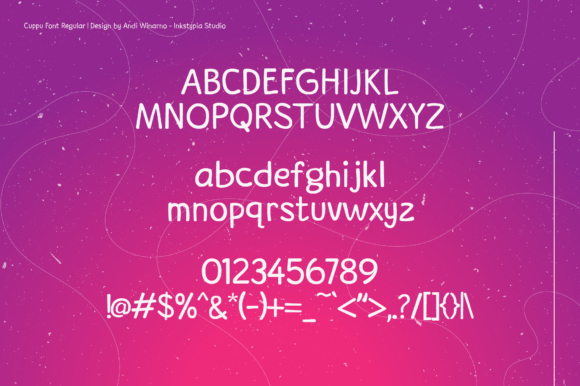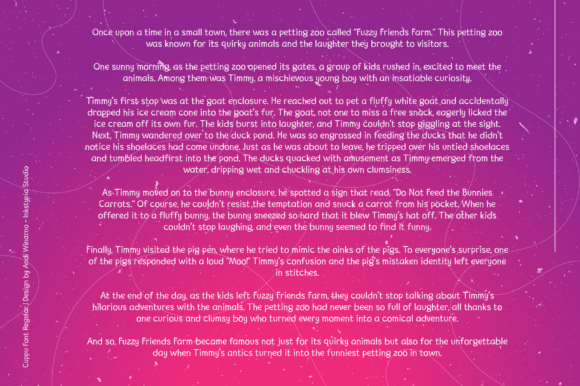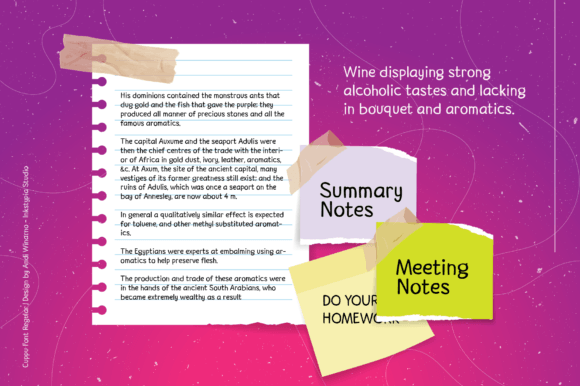
Cupu Font: The Ultimate Choice for a Casual and Relaxed Design
In the world of typography, fonts play a crucial role in conveying the tone and personality of a design. When it comes to creating a friendly and effortless vibe, Cupu Font stands out as an excellent choice. This casual and relaxed typeface captures the essence of handwritten text, making it perfect for personal notes, casual invitations, and relaxed branding materials.
The Characteristics of Cupu Font
Cupu Font boasts an informal and laid-back style that exudes a sense of ease and informality. The characters feature fluid and organic shapes, resembling the free-flowing nature of handwriting. This unique characteristic makes Cupu Font an ideal choice for designers and crafters looking to add a personal touch to their work.
The Benefits of Using Cupu Font
So, why choose Cupu Font for your design projects? Here are some benefits that make it a popular choice among designers:
- Conveys a friendly and effortless vibe: Cupu Font is designed to make your designs feel approachable and relaxed, making it perfect for projects that require a personal touch.
- Perfect for handwritten-style designs: With its fluid and organic shapes, Cupu Font is ideal for creating handwritten-style designs that look effortless and casual.
- Suitable for various design projects: From personal notes to casual invitations and relaxed branding materials, Cupu Font is a versatile typeface that can be used for a wide range of design projects.
Who Can Benefit from Cupu Font?
Cupu Font is a great choice for various designers and crafters, including:
- Graphic designers: Whether you’re working on a branding project or creating social media graphics, Cupu Font can add a touch of informality and comfort to your designs.
- Stationery designers: If you’re creating personal stationery, such as notecards or invitations, Cupu Font is an excellent choice for adding a personal touch.
- Crafters: Crafters who create handmade cards, gift tags, or other paper crafts can use Cupu Font to add a friendly and effortless vibe to their work.
Tips for Using Cupu Font Effectively
To get the most out of Cupu Font, here are some tips to keep in mind:
- Use it for body text: Cupu Font works best as a body text font, so use it for the main content of your design.
- Pair it with a bold font: For headings and titles, consider pairing Cupu Font with a bold font to create contrast and visual interest.
- Experiment with colors: Cupu Font looks great in a variety of colors, so don’t be afraid to experiment and find the perfect hue for your design.
| Font Name | Cuppu Font |
| Author | inkstypia |
In conclusion, Cupu Font is a casual and relaxed typeface that captures the essence of handwritten text. With its informal and laid-back style, fluid and organic shapes, and versatility, it’s an excellent choice for designers and crafters looking to add a friendly and effortless vibe to their work. Whether you’re working on a personal project or a professional design, Cupu Font is sure to bring a touch of comfort and informality to your designs.